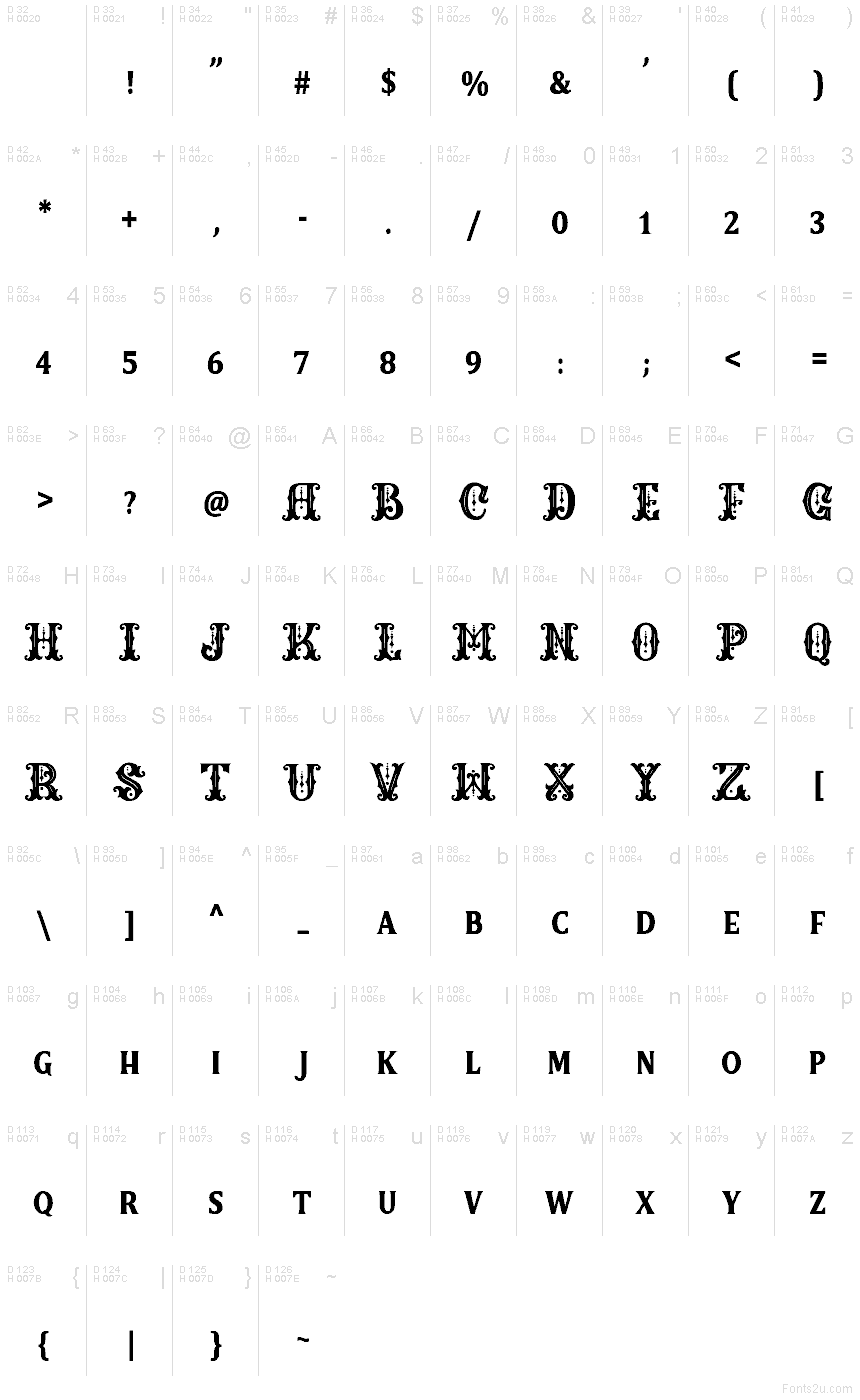
Elleganthe Regular
Elleganthe font by Eko Kurniawan is a free retro decorative display serif font. It stands out with a baroque, drop-cap energy baked into every letter: thick, inky strokes, crisp wedge serifs, and tiny ornamental bites that feel hand-carved rather than polished. The rhythm is steady and upright, giving it that vintage headline snap while keeping enough texture to catch the eye at a glance.
Using Elleganthe, titles lock up with authority on book covers, whiskey labels, boutique logos, heritage packaging, event posters, album art, and ornate menus. The spacing feels compact and confident, which helps short words stack tightly without crowding. This free font shines at large sizes; pair it with a quiet grotesque or a light humanist sans for body copy to balance the drama.